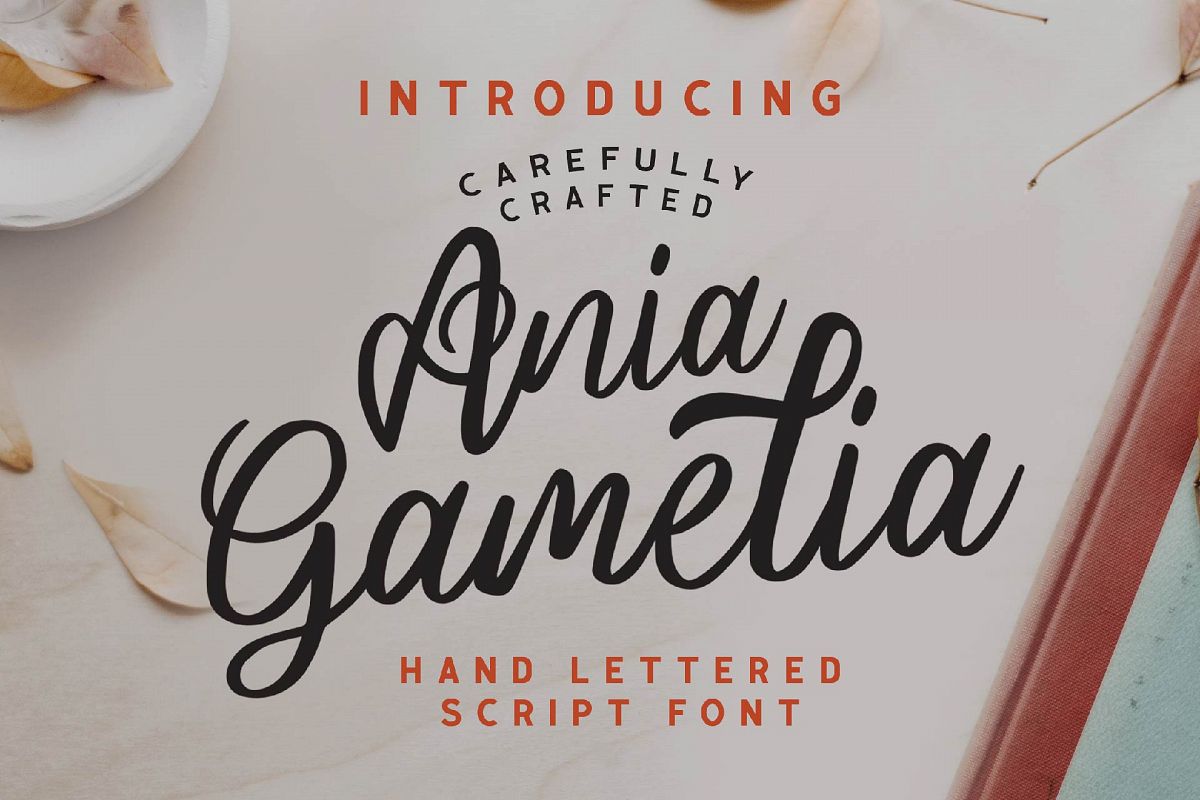
Ania Gamelia - Handlettering Script Font
Ania Gamelia
Ania Gamelia - Handlettering Script Font
So beautiful on invitation like greeting cards, branding materials, business cards, quotes, posters, and more!